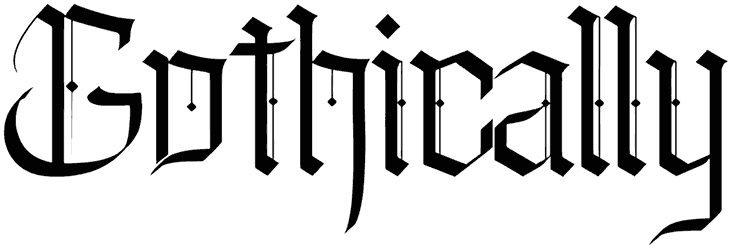
Gothically Font
There is something unusually attractive about Gothically that can make any printed layout look magnificent, which is probably why this Gothic font is used in branding and logo design.
Because of its subtle internal decorations, this font is inspired by medieval architecture and appears ideal for music projects. In general, wherever you need to add originality and numbers do not play a role in your design, both styles of this font can help you.